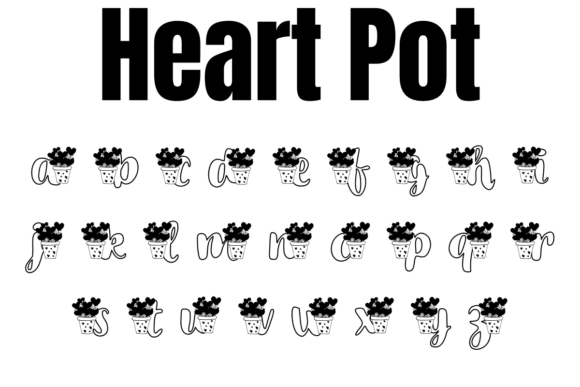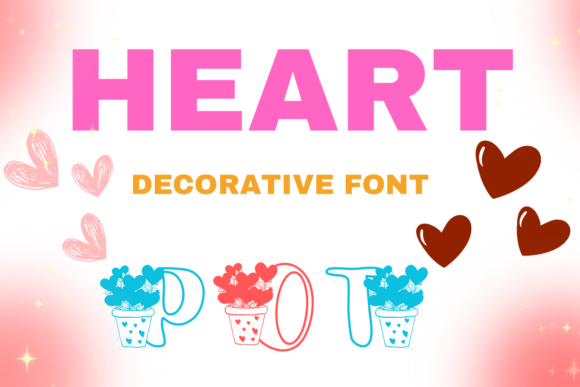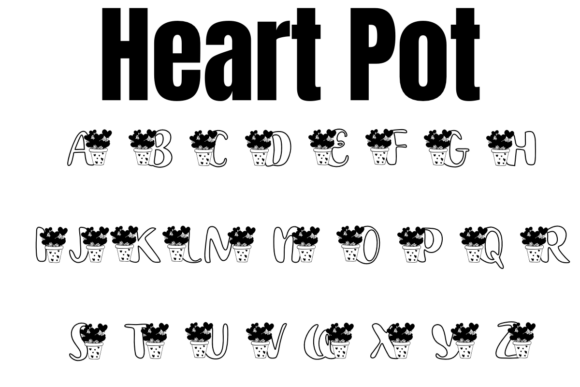
Introduction to Heart Pot Font
Remember the moment when you stumbled upon the perfect font for your creative project? The one that instantly sparked joy and set your design in motion? For many designers, finding that special font is a game-changer. And today, we’re excited to introduce you to a design resource that’s sure to capture your heart – literally! Introducing the Heart Pot Font, a whimsical and charming typeface that’s about to revolutionize the way you approach typography.
This beautifully crafted font is more than just a design element – it’s an experience. With its bold, rounded lines and delightful hand-drawn illustrations, the Heart Pot Font radiates warmth and affection, transforming simple text into a visual garden of emotion. Whether you’re working on a high-quality design project or simply need a creative outlet, this font is sure to bring a smile to your face.
Key Features of Heart Pot Font
- High-quality design resource suitable for various creative projects.
- Features a unique, hand-drawn design with a transparent background for easy customization.
- Includes a range of characters, including uppercase and lowercase letters, numbers, and symbols.
- Perfect for adding a touch of whimsy and personality to any design, from logos and branding to posters and invitations.
Honest Review: Heart Pot Font
I recently came across the Heart Pot Font and was excited to give it a try for my next creative project. As a designer, I’m always on the lookout for high-quality fonts that can elevate my designs.
The Heart Pot Font is a beautiful, hand-drawn font that’s perfect for adding a touch of whimsy to your designs. The font features a variety of characters, including uppercase and lowercase letters, numbers, and symbols. I was impressed with the level of detail and care that went into creating this font.
- High-quality design: The Heart Pot Font is beautifully designed and features a unique, hand-drawn style.
- Limited language support: The font only includes characters for the English language, which may be a limitation for designers working on projects that require support for other languages.
Overall, I’m impressed with the Heart Pot Font and would recommend it to designers looking for a unique and high-quality font for their creative projects.
The Heart Pot Font is a high-quality design resource ideal for various creative projects. Its transparent background makes it perfect for use in different design contexts.
The Heart Pot Font is perfect for a variety of creative projects, including wedding invitations, birthday cards, and social media graphics.